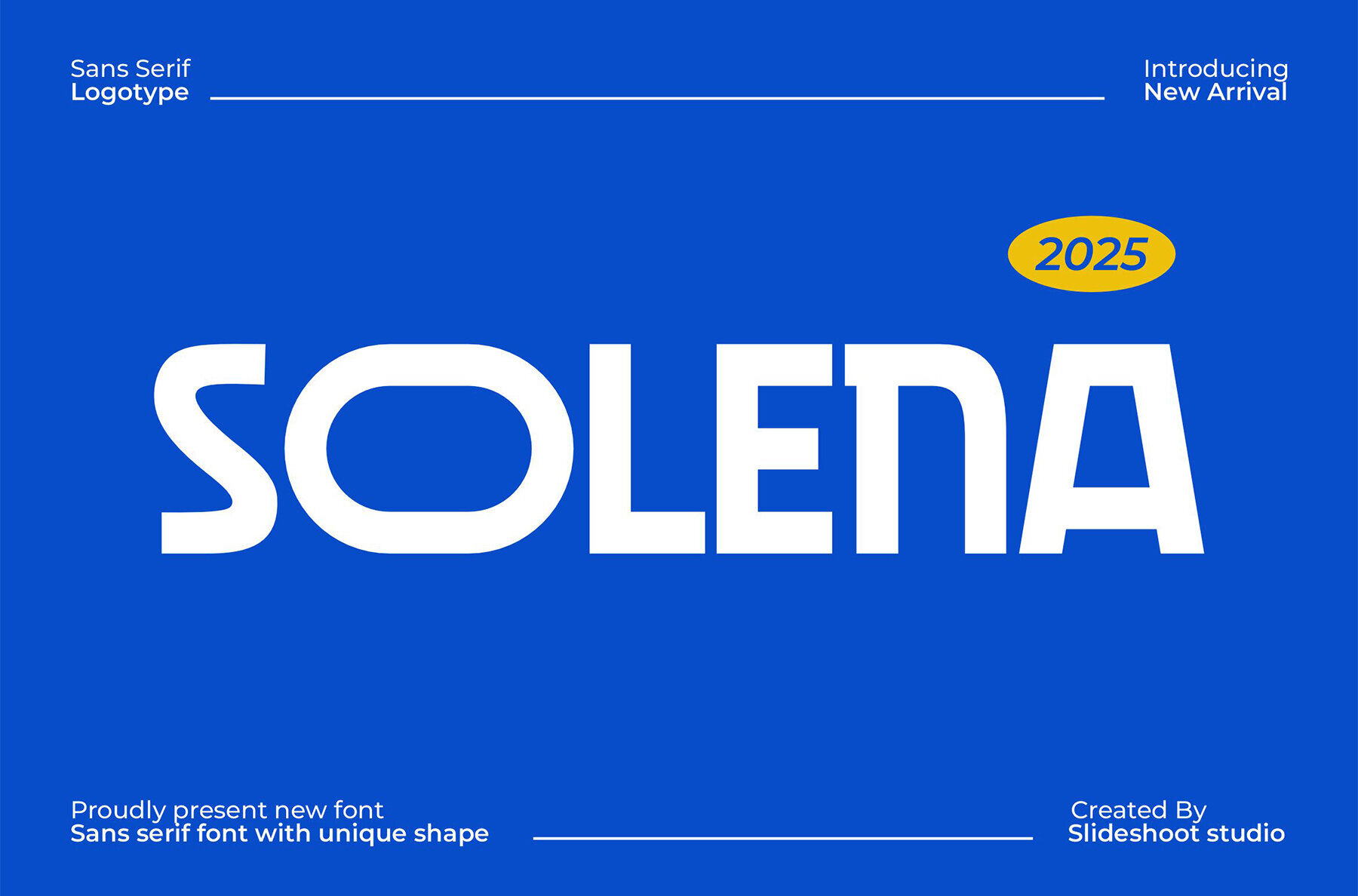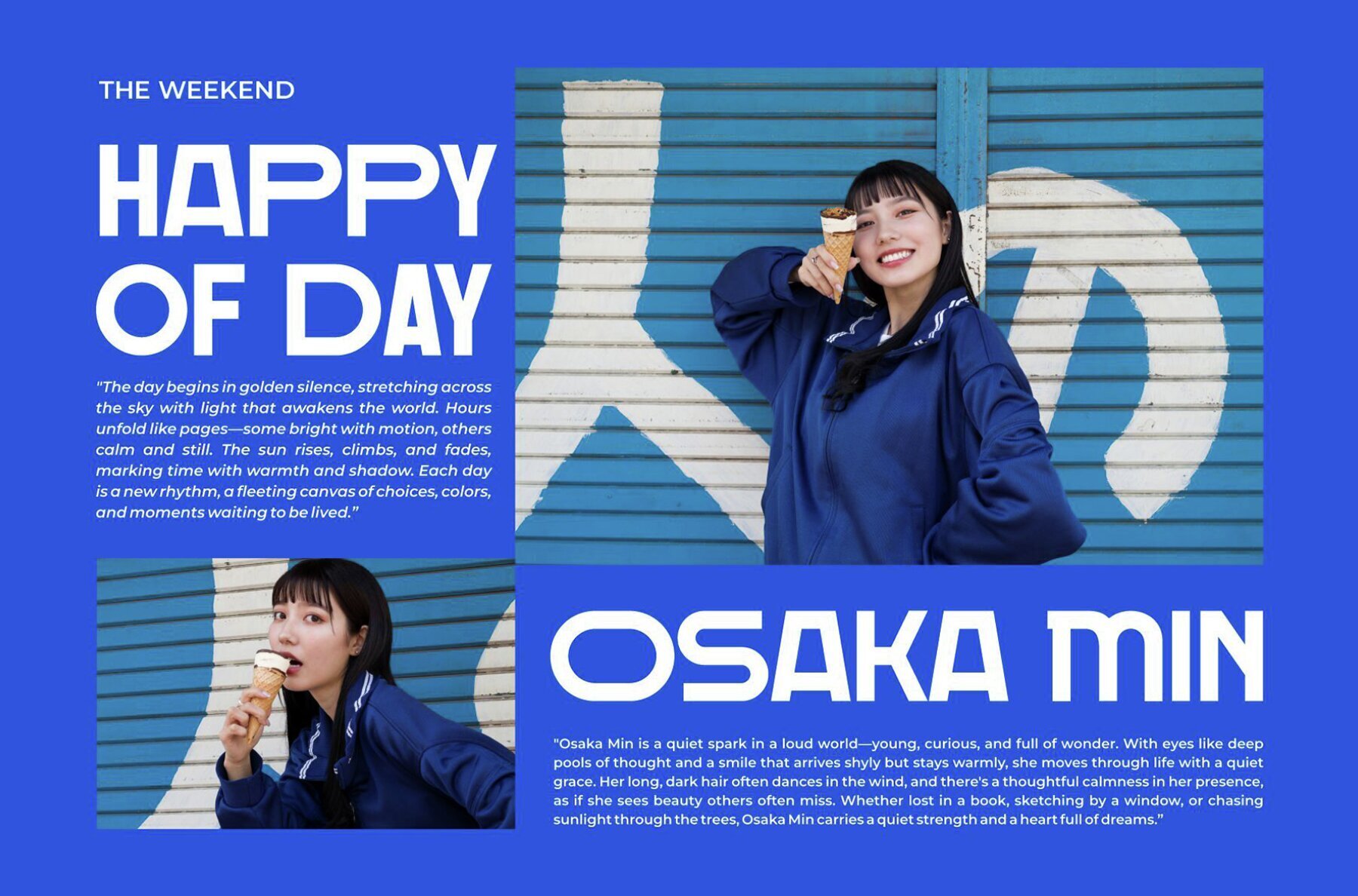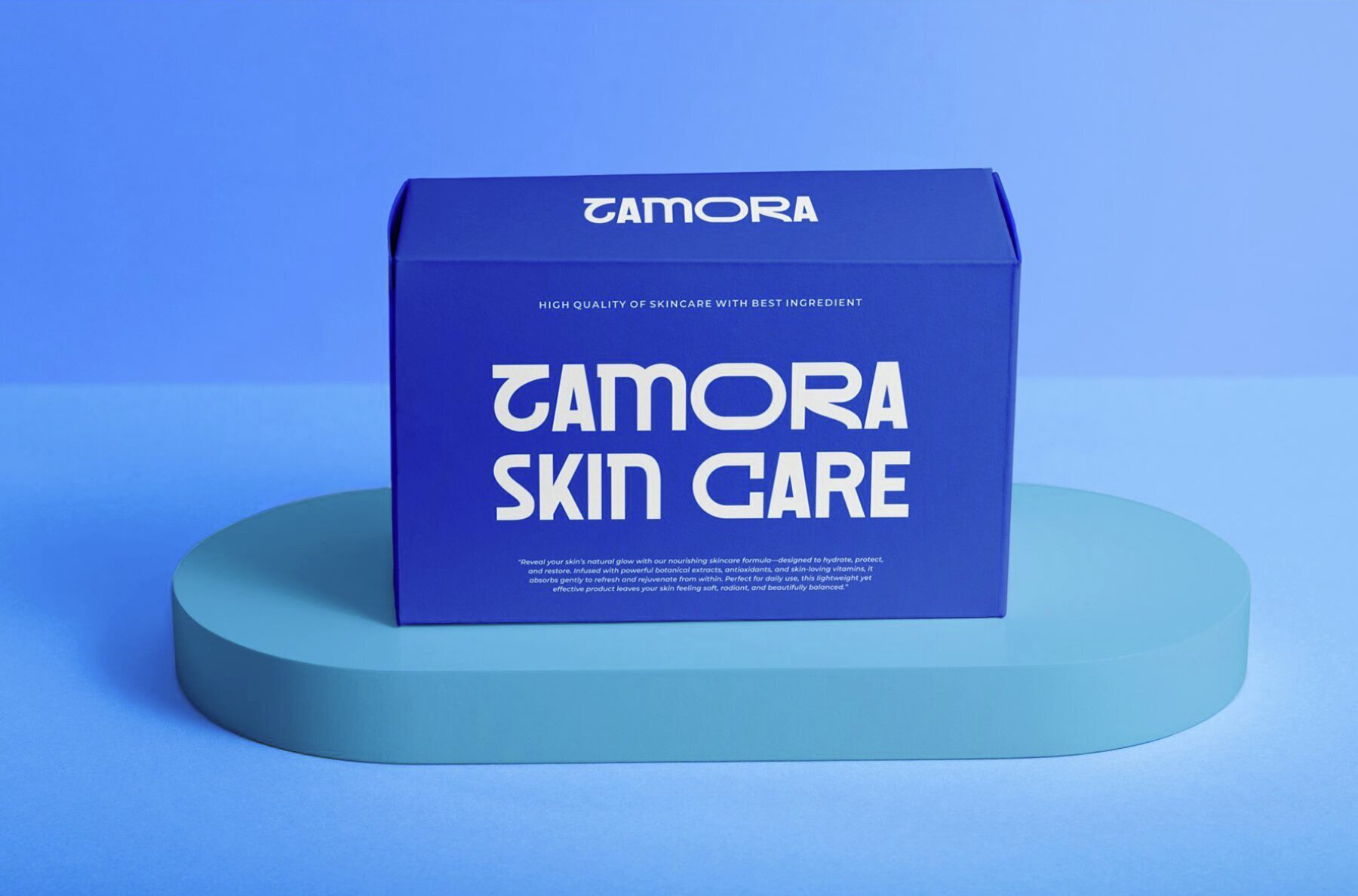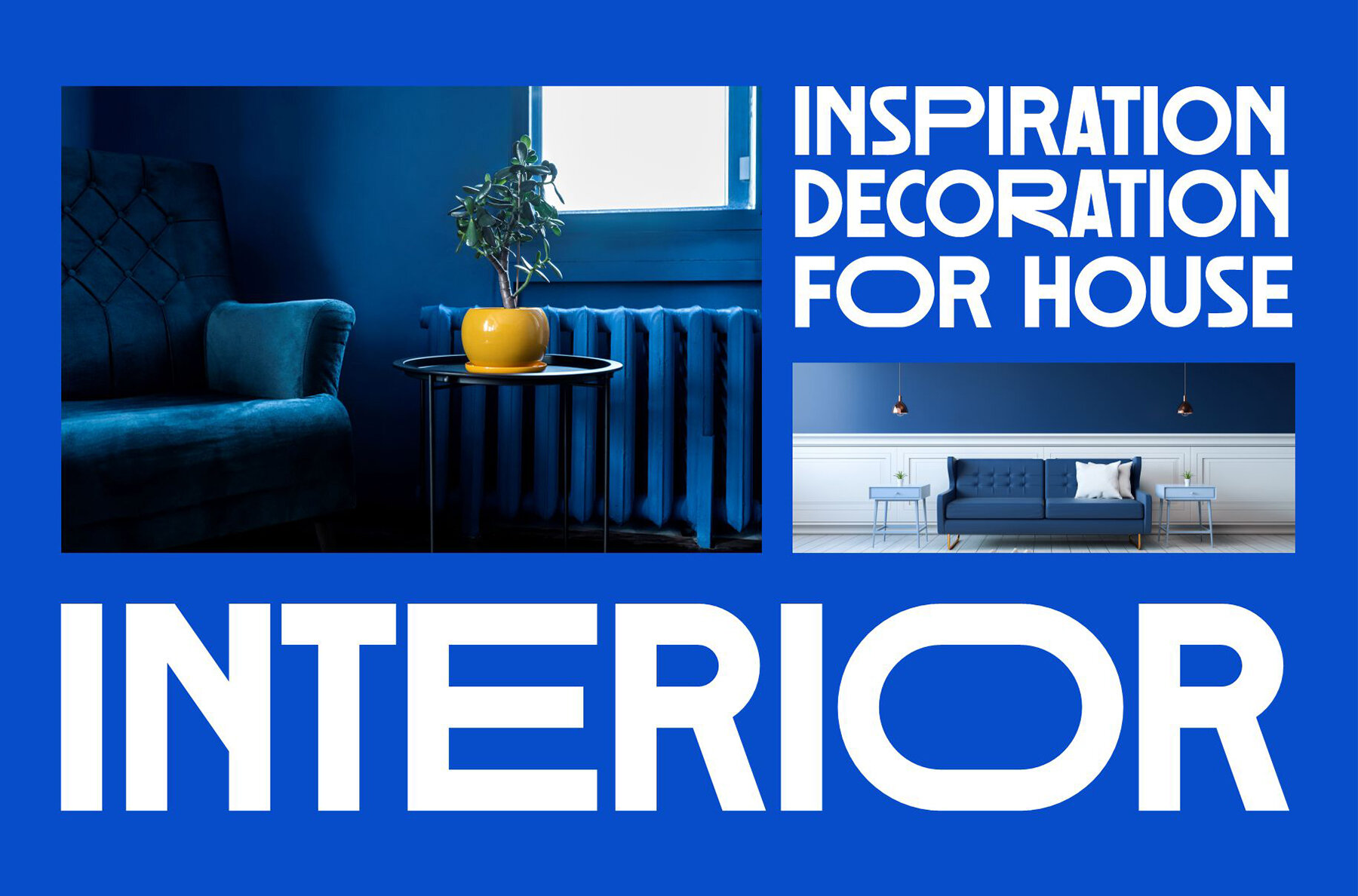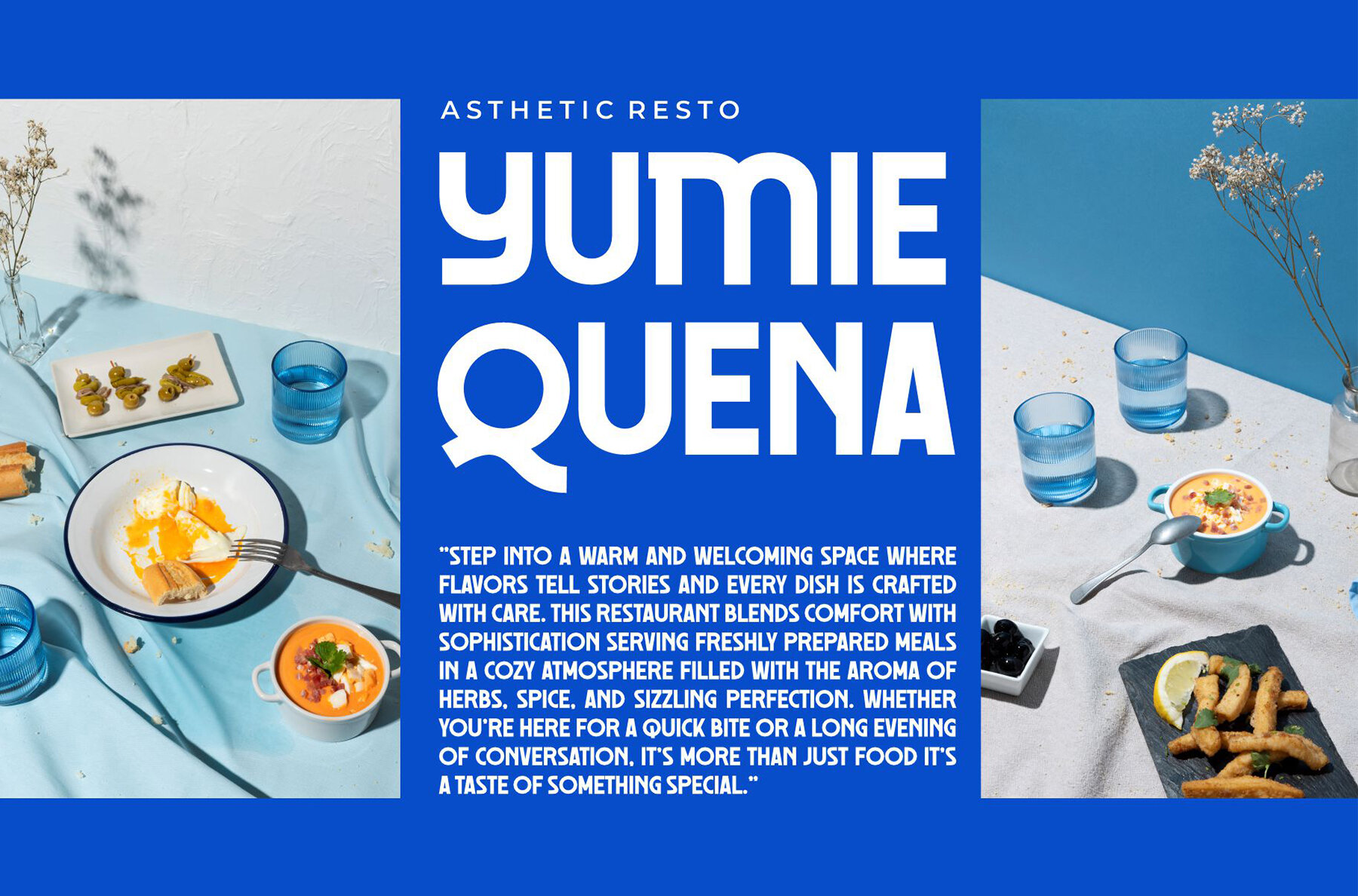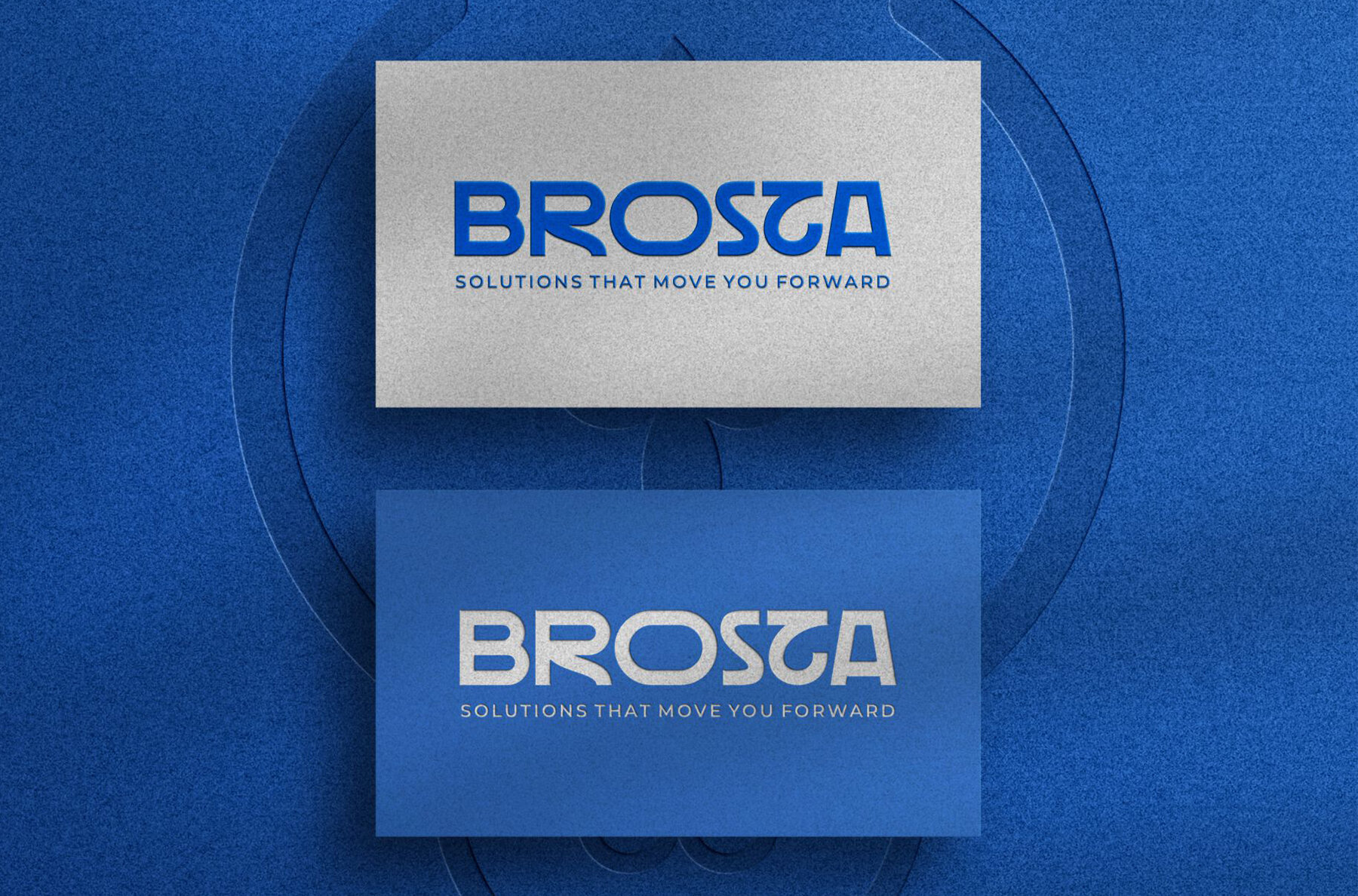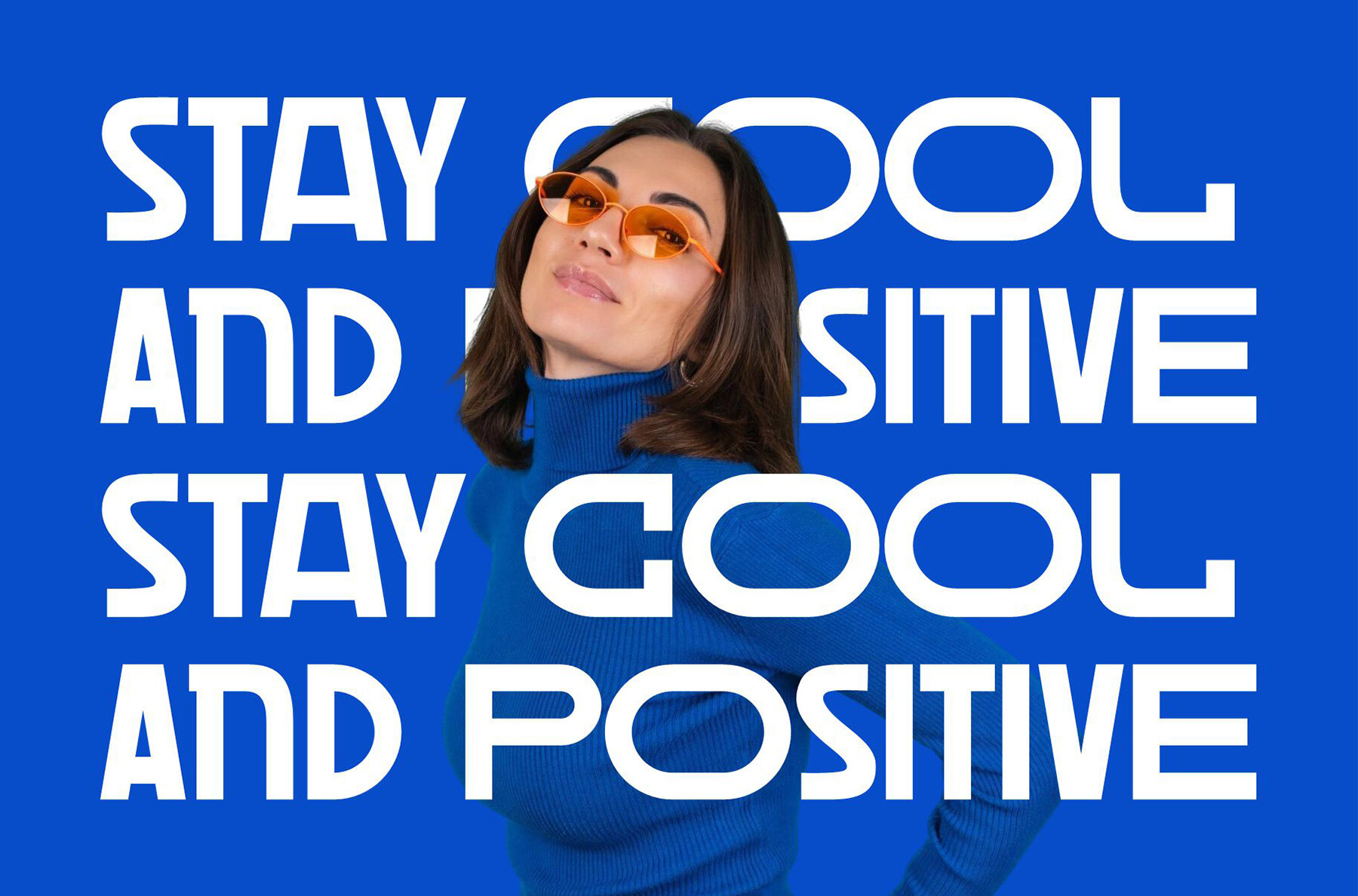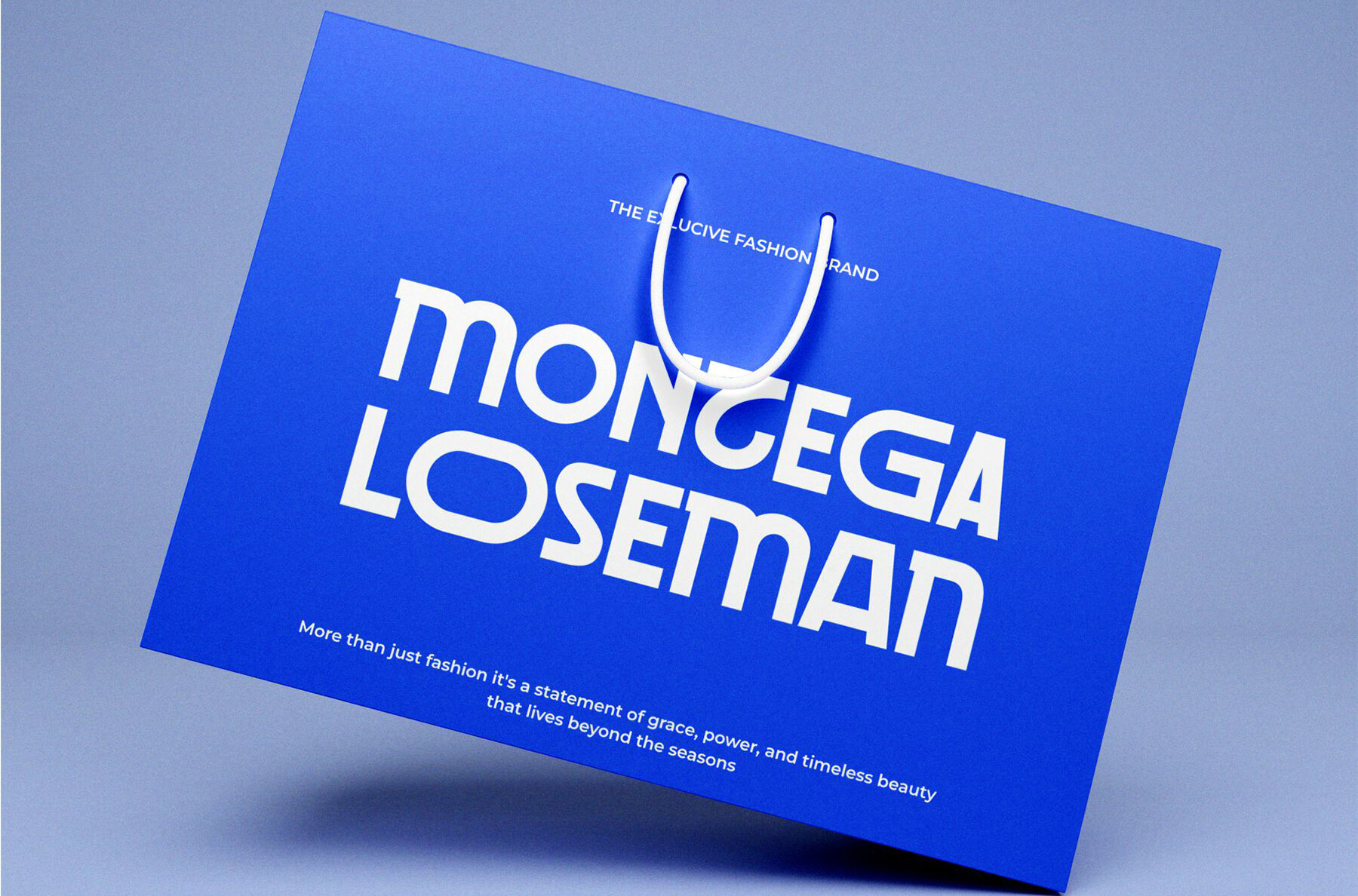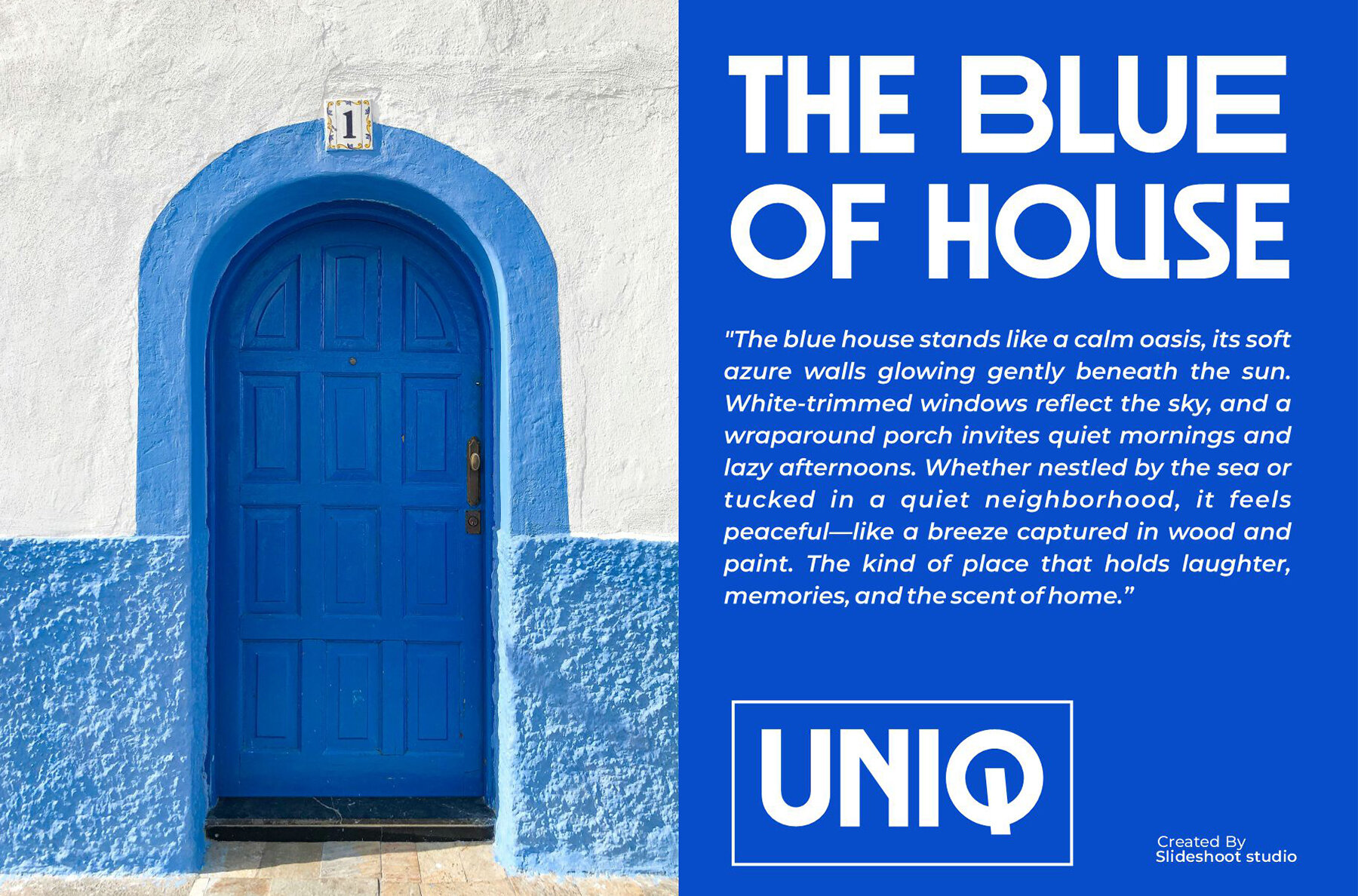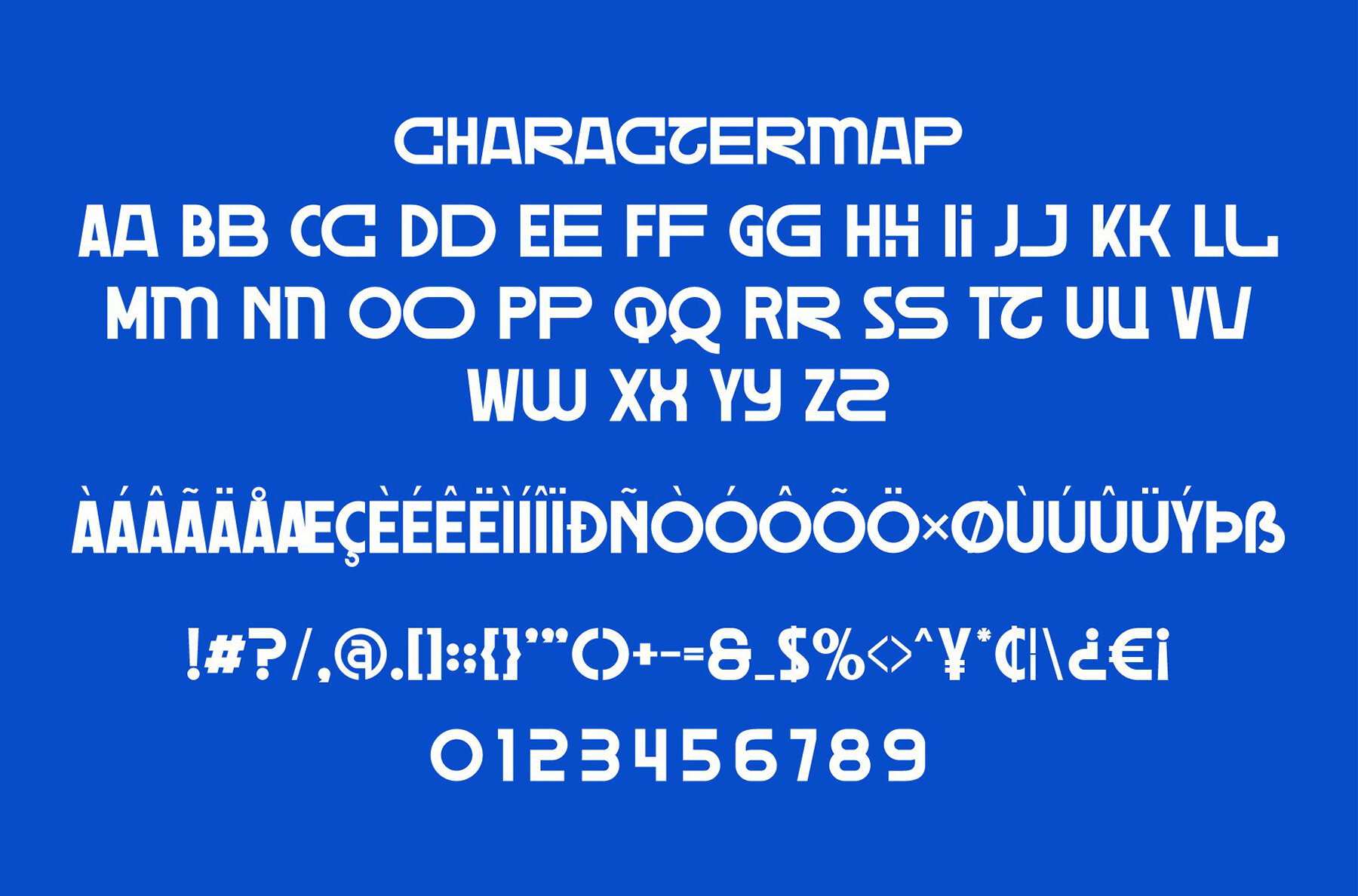
Solena Font
Solena
Meet Solena, a stylish modern sans serif font radiating a playful charm with its distinctive wood-themed character. This trendy and bouncy display font is your go-to choice for a variety of design projects. Whether crafting invitation cards, shaping company logos, or titling movies and books, Solena adds a unique flair to your work.Solena: A Trendy Sans Serif Font